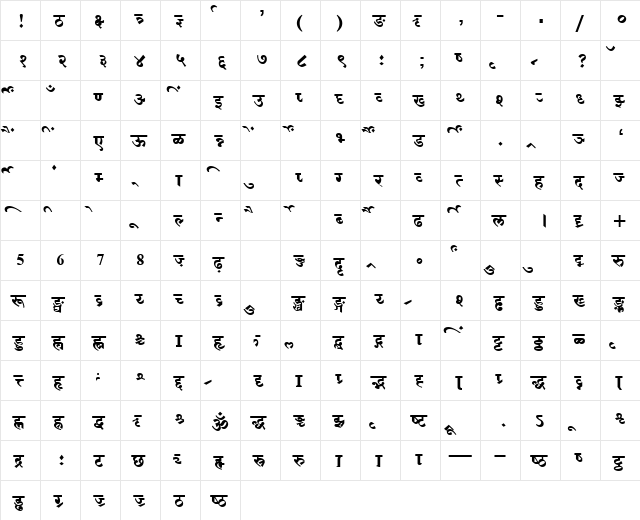
AkrutiDevMouj Bold
Design Context for AkrutiDevMouj Typeface
AkrutiDevMouj offers clean, dependable letterforms without strong stylistic allegiance, making it a practical choice for designers who need flexibility. The heavy weight commands attention and anchors typographic hierarchies.